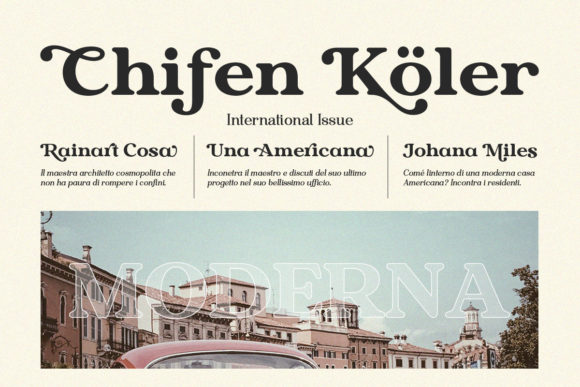
Vergilia Font
Vergilia is a stylish and elegant serif font. It is perfect for product packaging, branding project, magazine covers, social media, wedding, or just used to express words above the background.